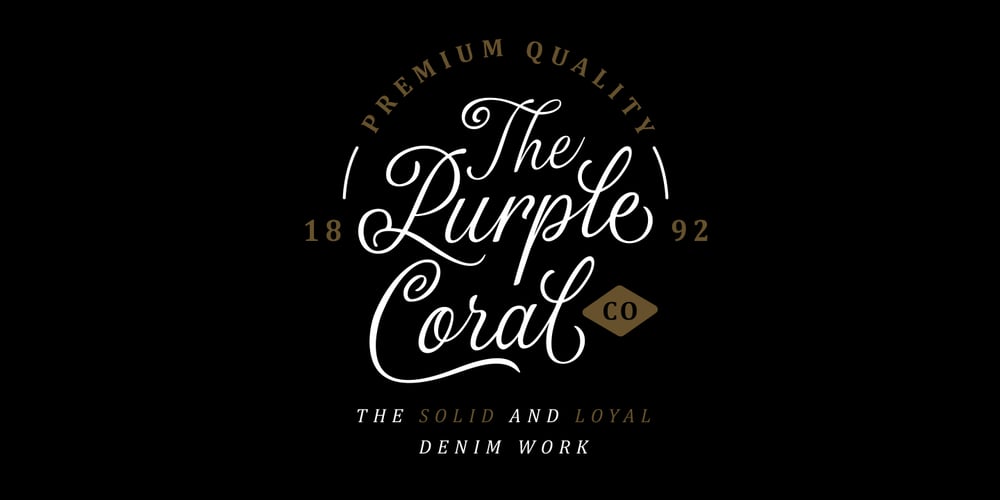
The Majority Font Family was designed by Hendry Juanda and published by Letterhend. The Majority contains 1 styles and family package options. A classy script that beautifully flows and brings the feel of luxury. This font is perfect to be used on t-shirt designs, logos / branding, signatures, headlines, lettering quotes, etc. It also includes in uppercase, lowercase, punctuations, symbols & numerals, stylistic set alternate, ligatures, and support for multiple languages.